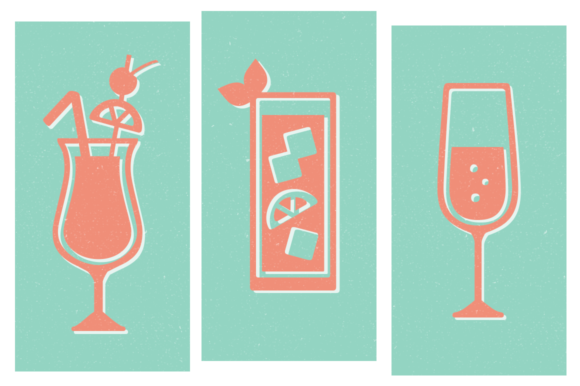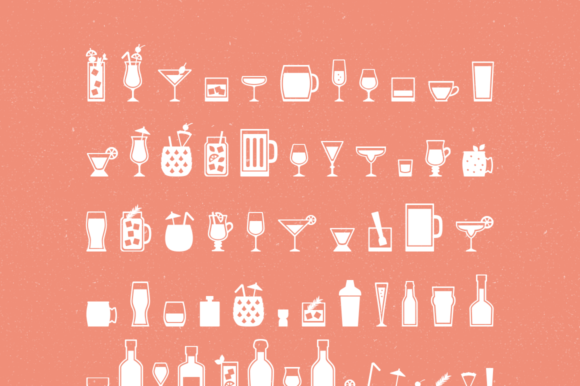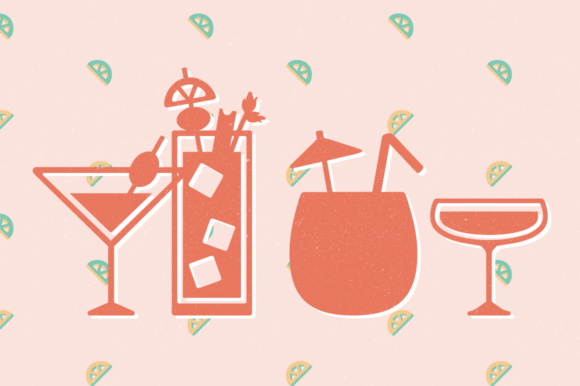
Bar Book Font
About Bar Book Font
The lowercase and uppercase letters of the font you mentioned provide a delightful assortment of glassware, bottles, and drinks, while the numbers offer a range of accessories and garnishes. This unique combination allows you to mix and match these elements to create an array of new and creative combinations.
Here are some ideas on how you can utilize these elements:
1. Menu Designs: Use the different glassware and drink symbols to create eye-catching menu designs for restaurants, bars, or cafes. Combine them with the accessory and garnish symbols to showcase the variety of drinks available.
2. Beverage Packaging: Incorporate the glassware and bottle symbols into packaging designs for beverages such as wines, spirits, or specialty drinks. The symbols can help communicate the type of drink contained inside and add an elegant touch to the packaging.
3. Cocktail Recipes: Create visually appealing cocktail recipes by using the symbols to represent the ingredients and glassware required for each drink. This can be particularly useful for cocktail books, bar guides, or online recipe platforms.
4. Bar and Restaurant Signage: Design signage for bars, pubs, or restaurants using the symbols to showcase the establishment’s specialty drinks or featured beverages. It can help create a visually cohesive and enticing atmosphere.
5. Social Media Graphics: Use the symbols to create engaging graphics for social media posts related to drinks, mixology, or cocktail recipes. These symbols can add a unique and visually appealing touch to your posts and catch the attention of your audience.
Remember to experiment with different combinations, colors, and sizes to create visually appealing compositions. Whether you’re designing for print or digital media, the assortment of glassware, bottles, drinks, accessories, and garnishes offers a versatile toolkit to bring your ideas to life.
So, get creative and have fun exploring the possibilities of this unique dingbat font! Cheers!